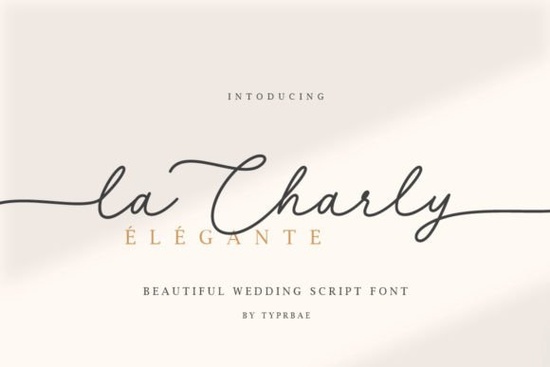
If you are looking for a delicate handwritten typeface that brings a soft, romantic feel to your projects, La Charly Font delivers exactly that. This script typeface was built with careful attention to flow, featuring graceful beginning and ending strokes that mimic real penmanship. The standout detail is a small heart-shaped connector that appears between certain letters, giving wedding invitations, branding materials, and craft designs a quiet charm without feeling overly decorative.
What makes this script font stand out?
Many handwritten fonts try to look casual but end up feeling stiff or repetitive. This design avoids that trap by including multiple letter alternatives and carefully drawn swashes. The beginning and ending tails extend naturally, which means you can create custom-looking wordmarks without manually drawing extra flourishes. Because the file is PUA encoded, you will not need extra software to reach the alternate glyphs. Your standard character map or font panel in design programs will show every ligature and stylistic set right away.
Where does a delicate handwritten font work best?
This style shines when you want a personal touch without sacrificing readability. Print-on-demand sellers use it for mug quotes, tote bag typography, and nursery wall art where a soft script feels welcoming. Small business owners rely on it for packaging labels, thank-you cards, and boutique logos that need a handcrafted vibe. Crafters and hobbyists find it especially useful for vinyl cutting, sublimation transfers, and digital scrapbooking. If you prefer working with a larger collection of handwritten styles, you might want to browse a handwritten script bundle page to see how different weights and moods can complement each other in a single brand kit.
How do I access the special characters and ligatures?
What should I pair it with for balanced layouts?
Delicate scripts need breathing room and a solid counterpart. Pairing a flowing handwritten style with a clean sans serif or a structured monospace keeps your design readable. For example, you might combine it with a straightforward typewriter style like the ones you will find when exploring an ab typewriter companion collection. The contrast between soft curves and rigid lines creates visual hierarchy without competing for attention. If you prefer something with a bit more bounce, a rounded script such as honey script options can work well for secondary headings, while a playful duo like lemoncake duo pairings gives you both a script and a matching print for quick layout building. When you need a heavier, brush-style contrast, browsing a westfalia brush alternative selection can help you find a bold companion that grounds the delicate strokes.
- Test spacing at different sizes since delicate scripts can lose detail when scaled too small.
- Pair with a simple secondary font to keep body text readable and let the script shine in headlines.